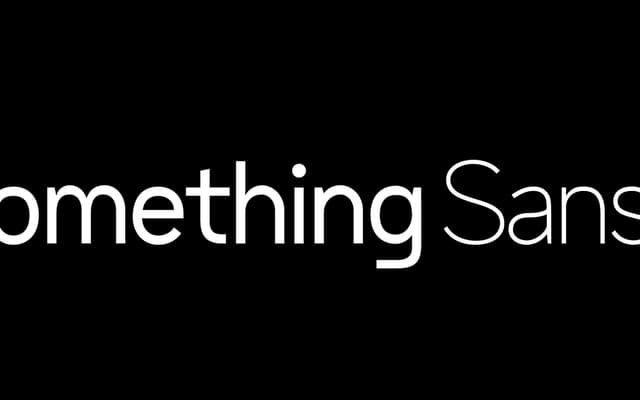
Something Sans
A four-style geo-grotesque with blocky forms and a rounded variant that adds a softer edge to its simplified shapes.
Built on a geo-grotesque base, Something Sans pairs blocky construction with occasional unexpected letterform choices that give it personality without sacrificing legibility. The family runs to four styles across two sub-families: the standard cut in Light and Regular, and a Rounded version in the same weights. The rounded variant softens the blunt terminals to lend the family a friendlier register.
Described as rooted in the geo-grotesque aesthetic with blocky, simplified forms; sits at the intersection of geometric and grotesque sans traditions.